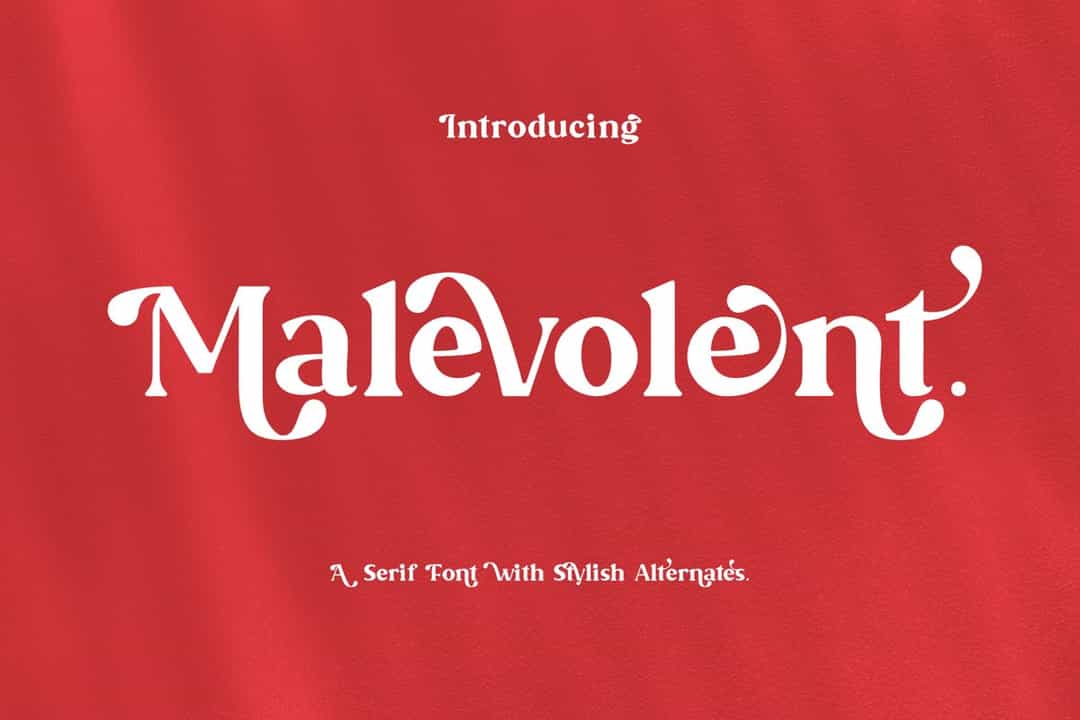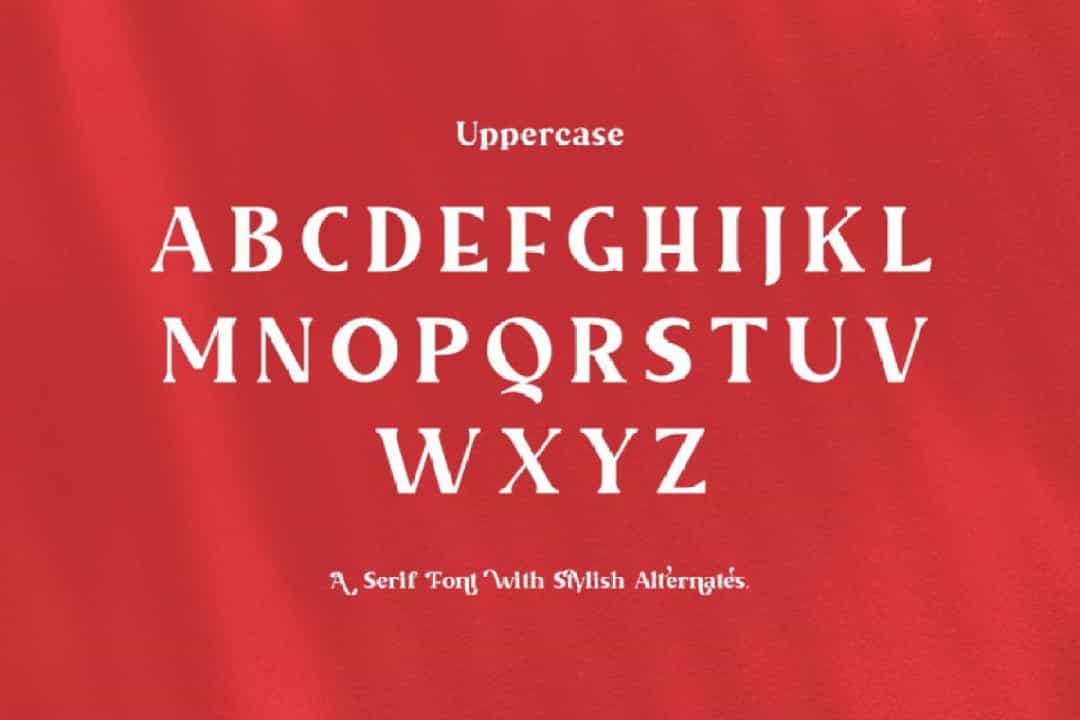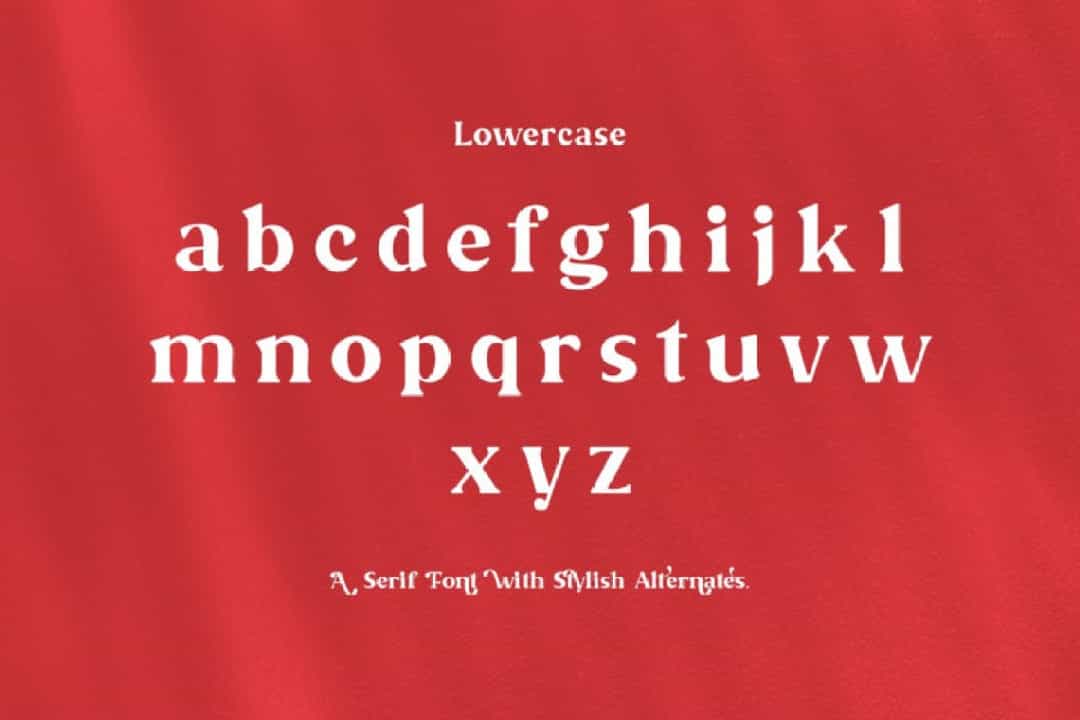
Malevolent is a stylish font that blends modernity with retro charm. Elegant yet vintage-esque, classy yet old school, Malevolent works great as apparel font, fashion project font or album cover font; perfect for album covers, signature logo branding magazines social media advertisements but it can also work for other projects as well.